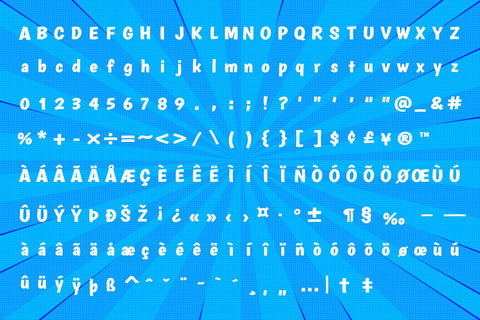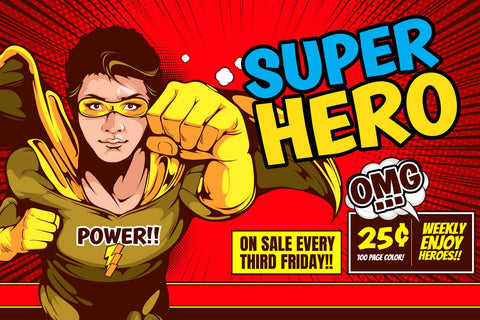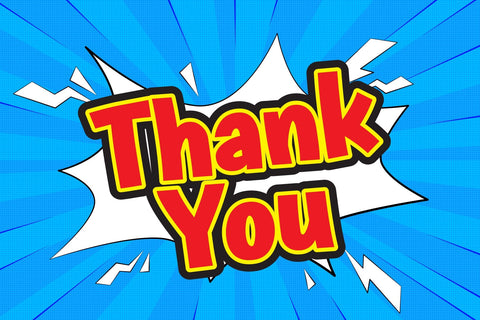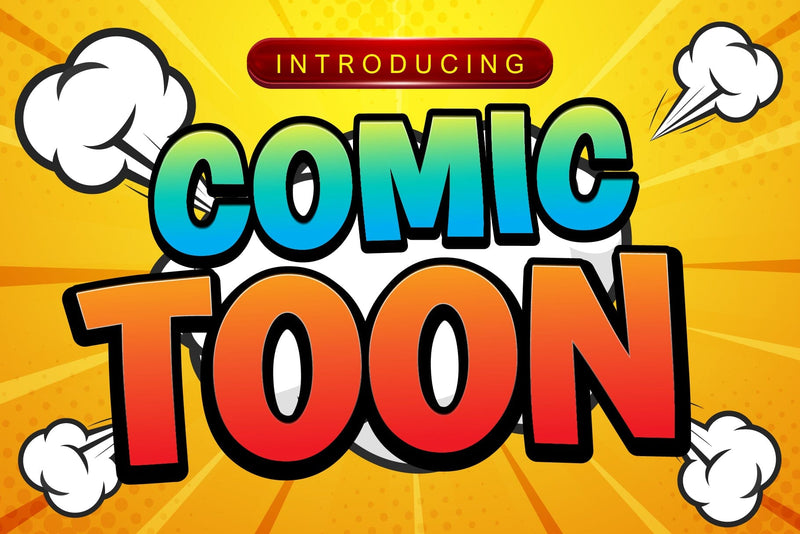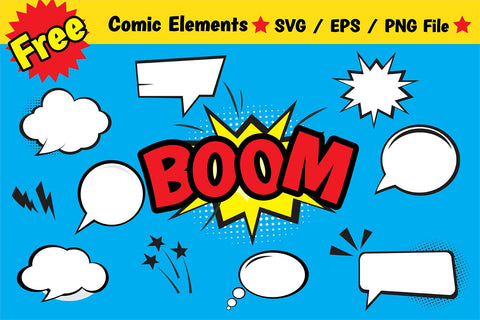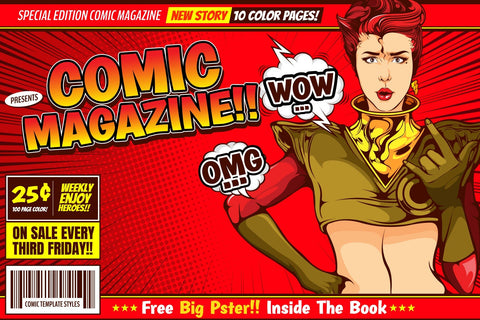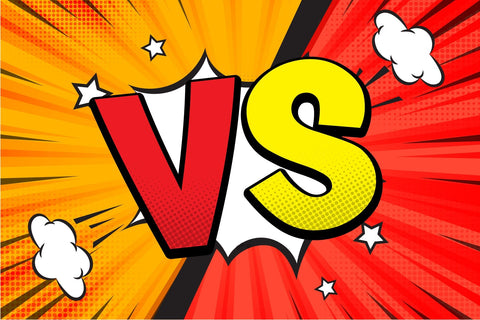
Comic Toon Font
Comic Toon is a cool and fun display font. It is the perfect font for titles or words needing a more dramatic emphasis. Whatever the topic, this font will be a wonderful asset to your font library, as it has the potential to enhance any creation.